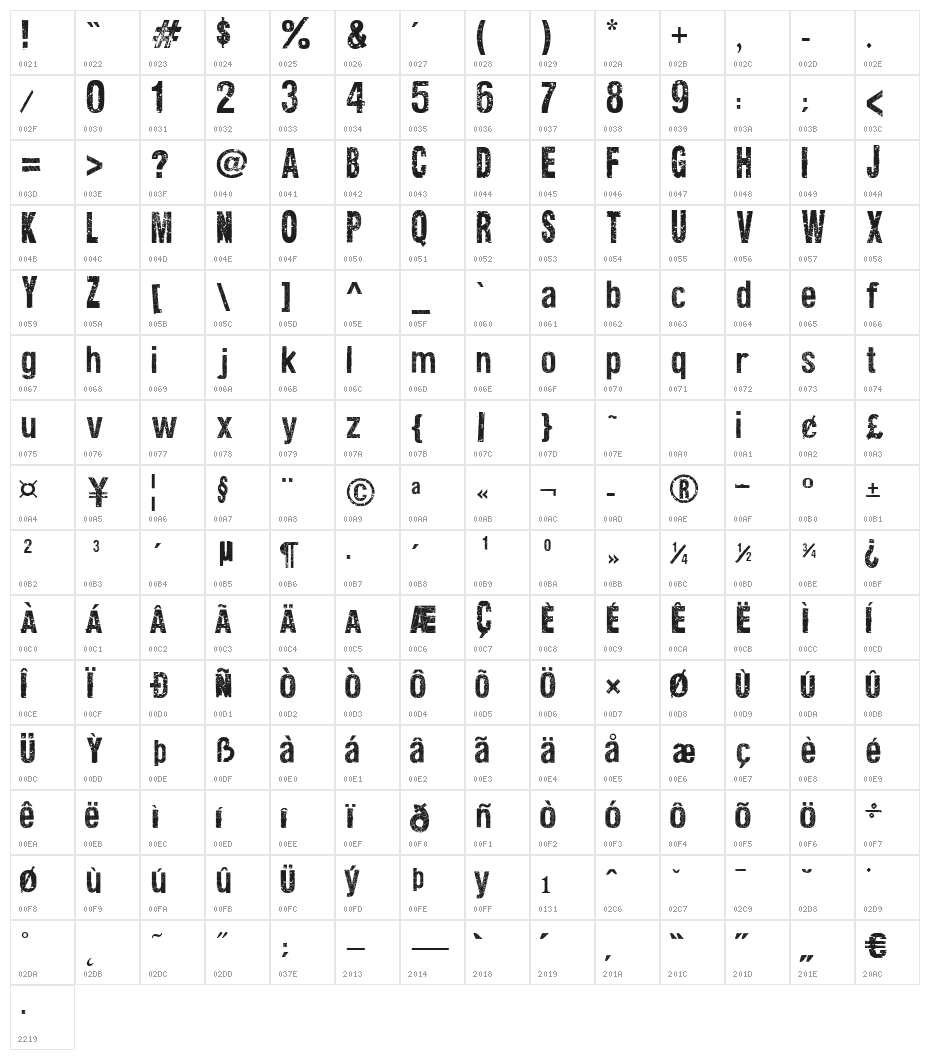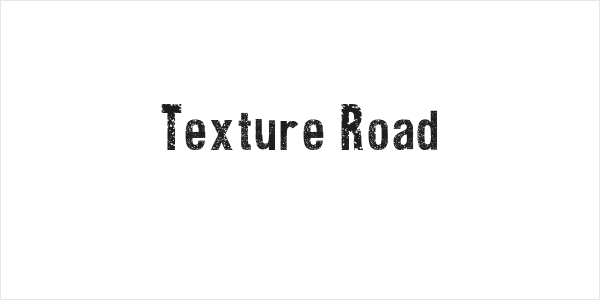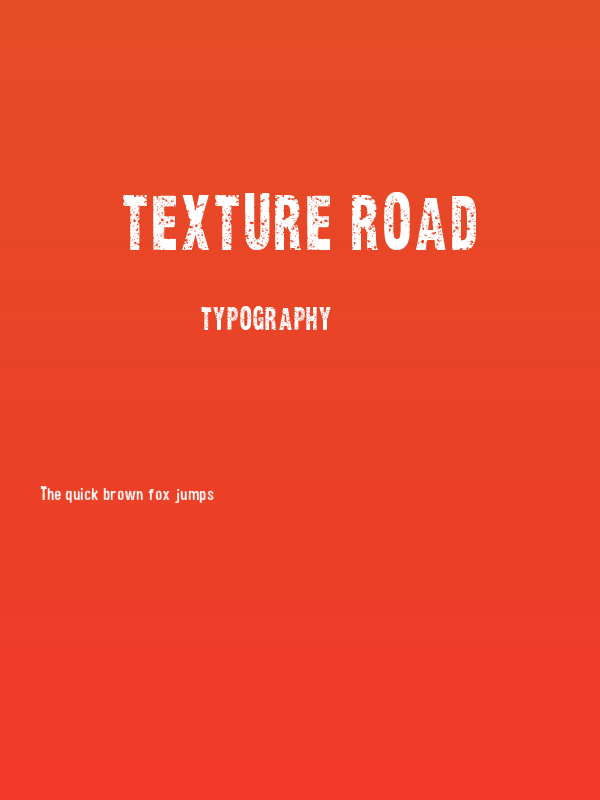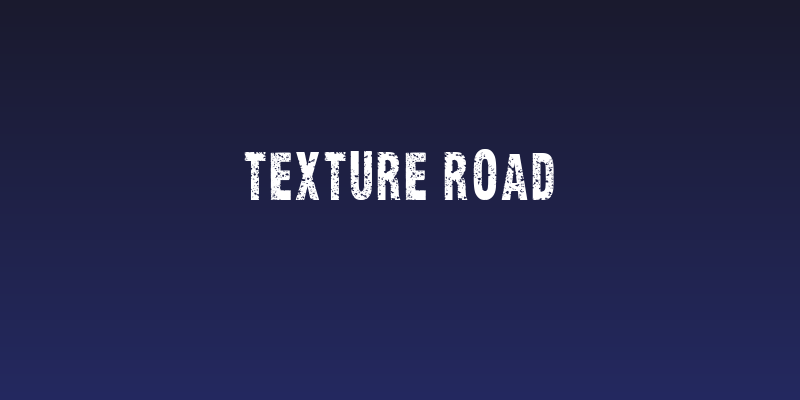
Texture Road Font
| Proiecte propuse | Ideal for posters, album covers, branding for outdoor or adventure-themed products, and any design needing a vintage or industrial touch. |